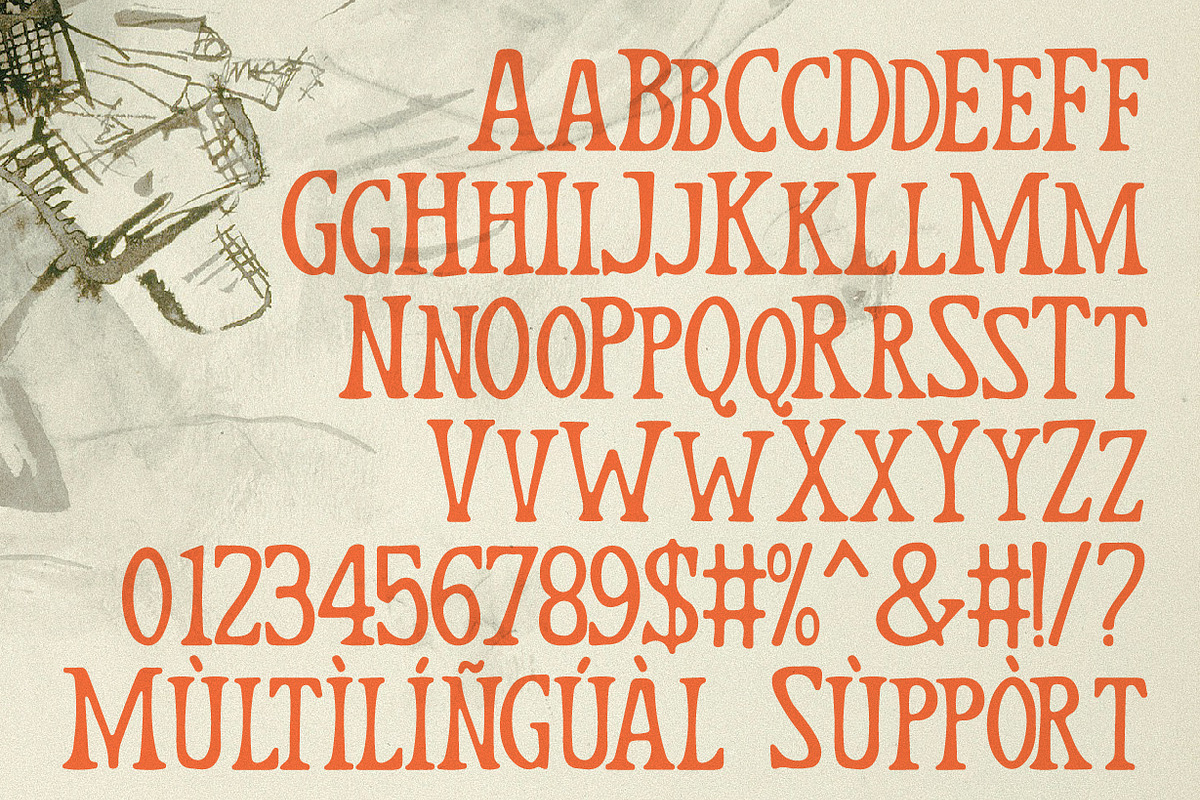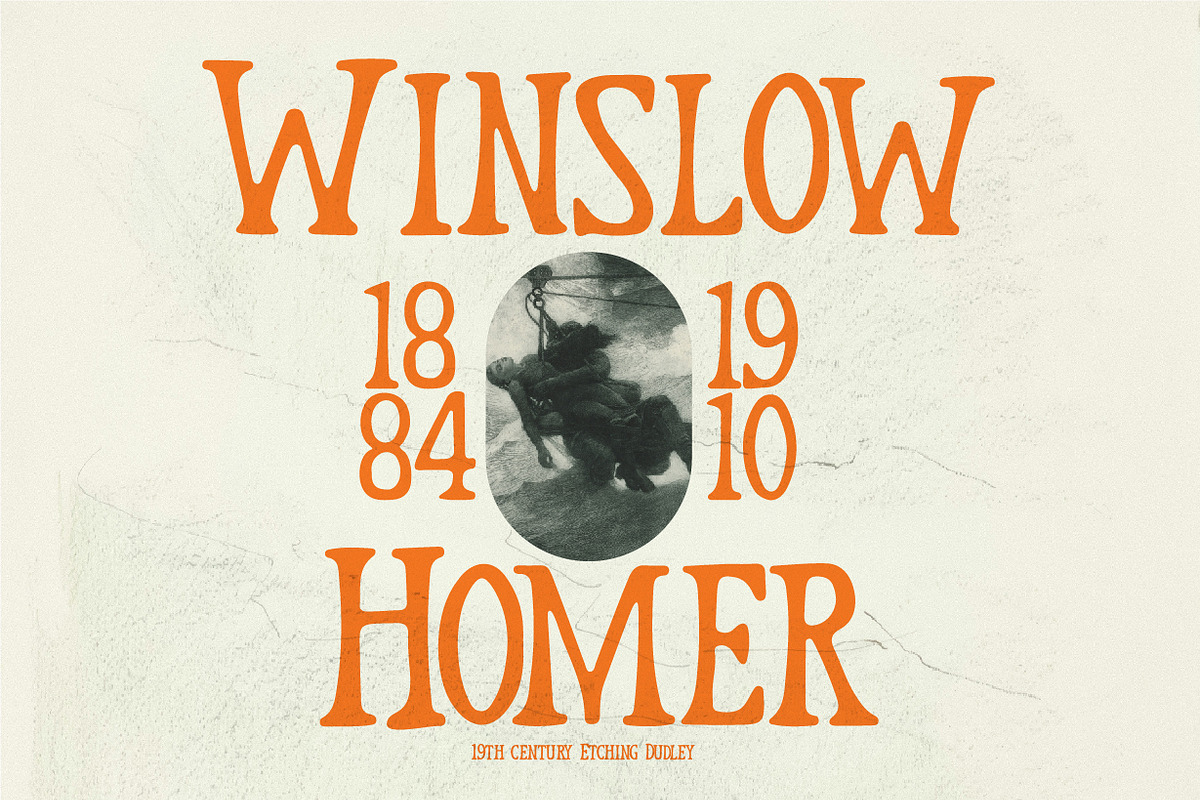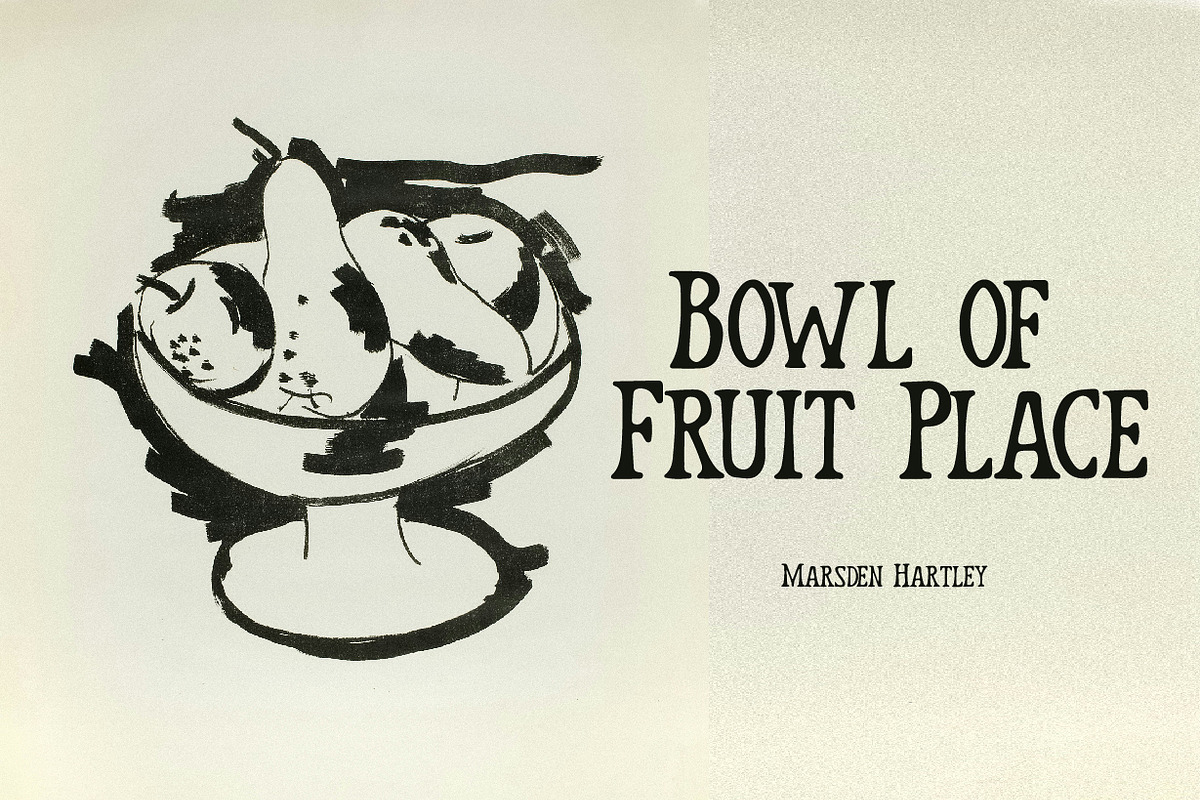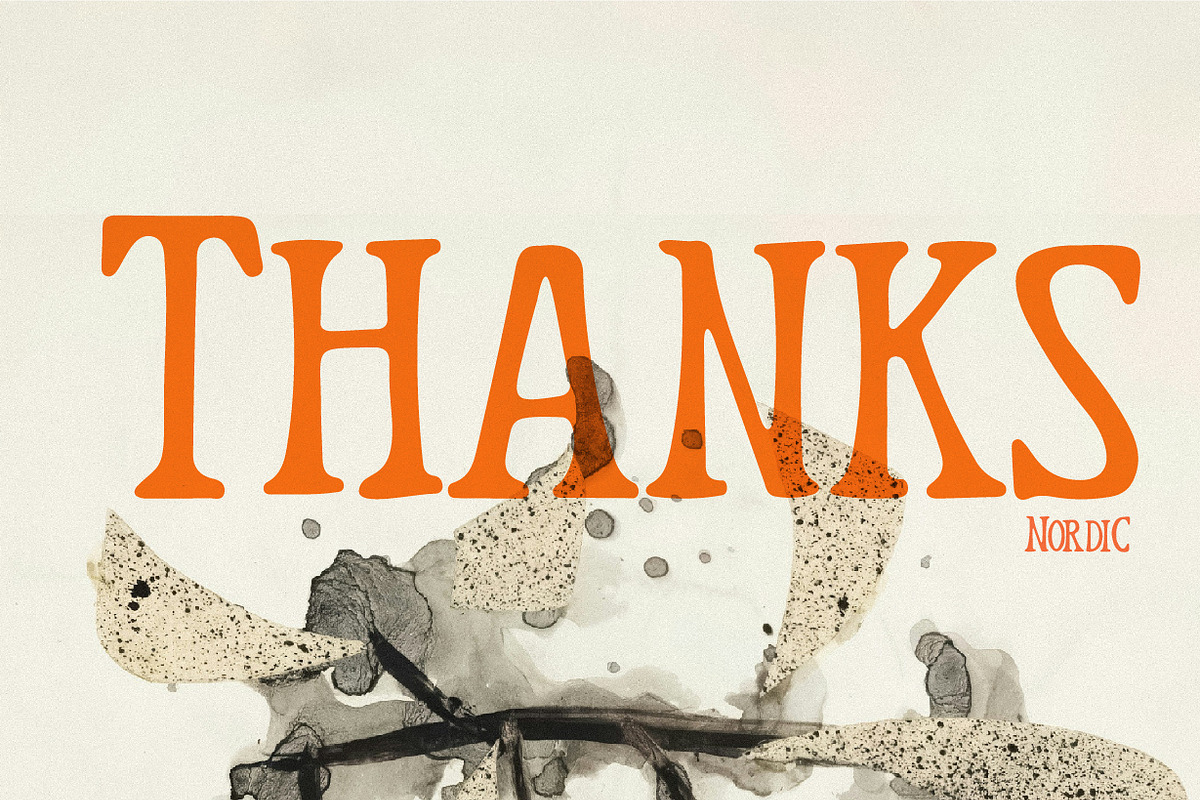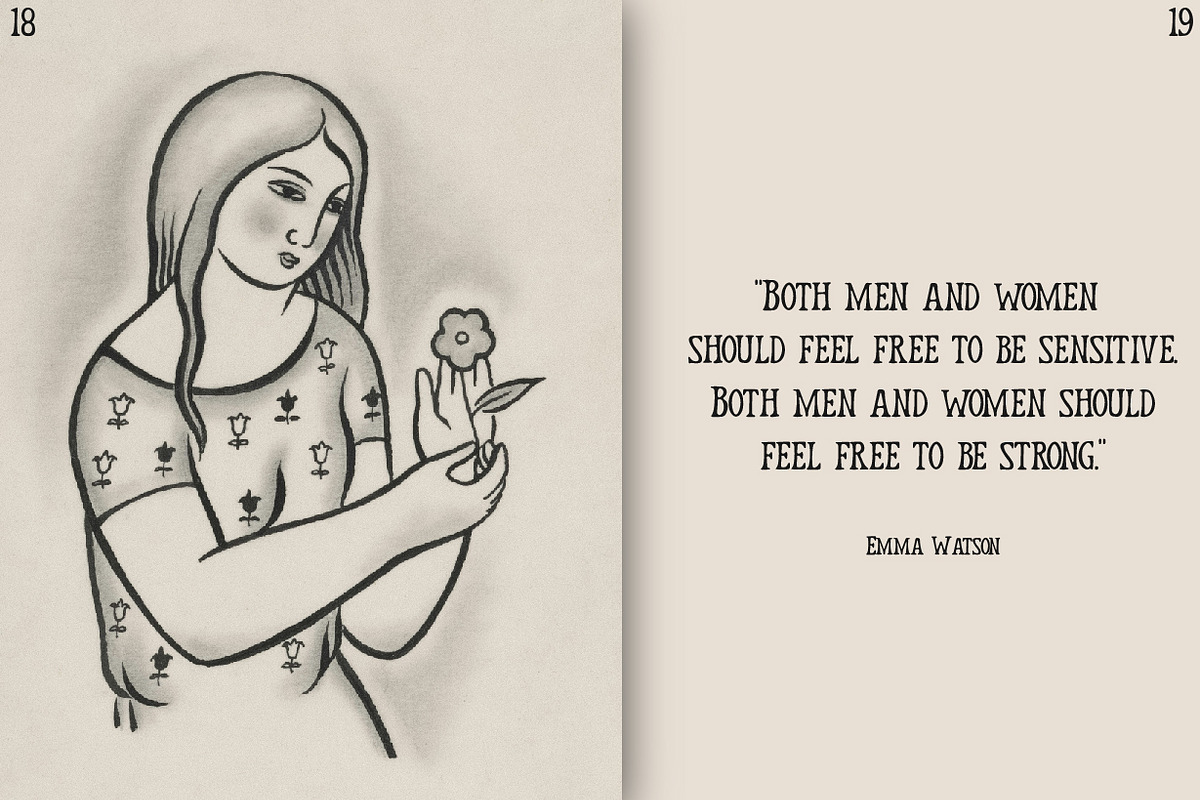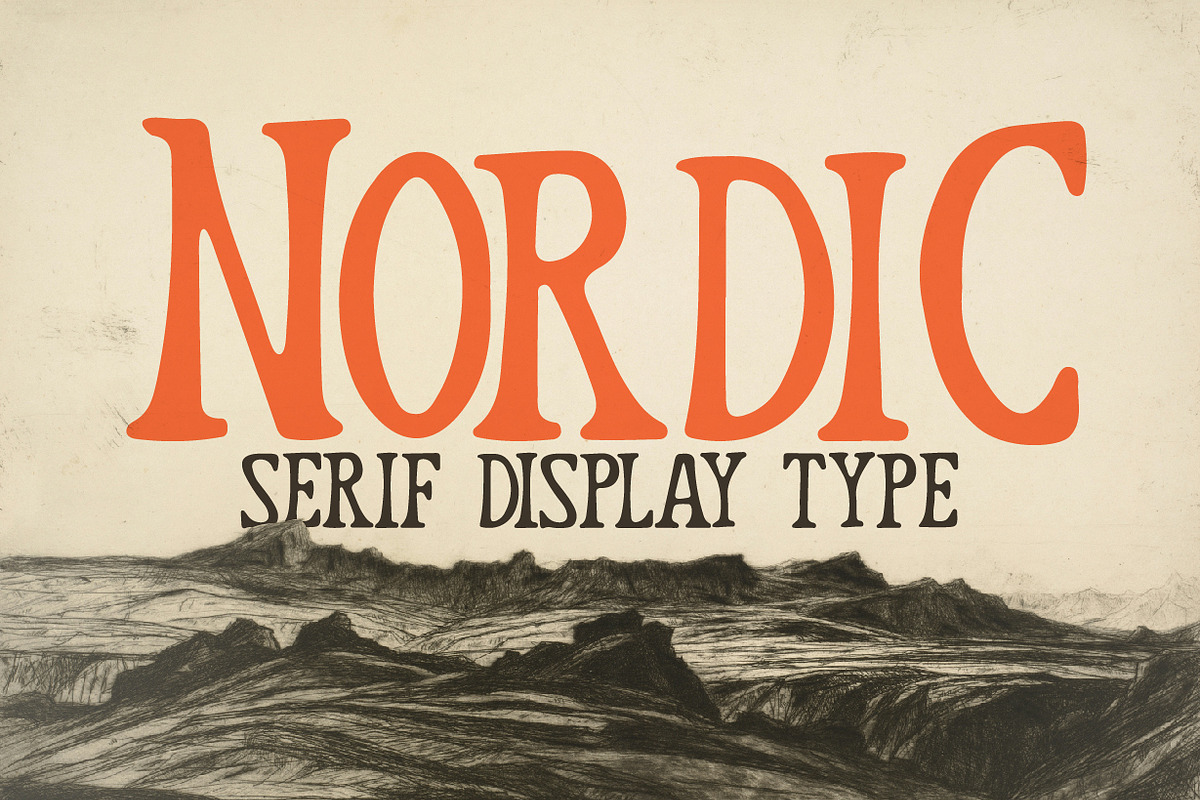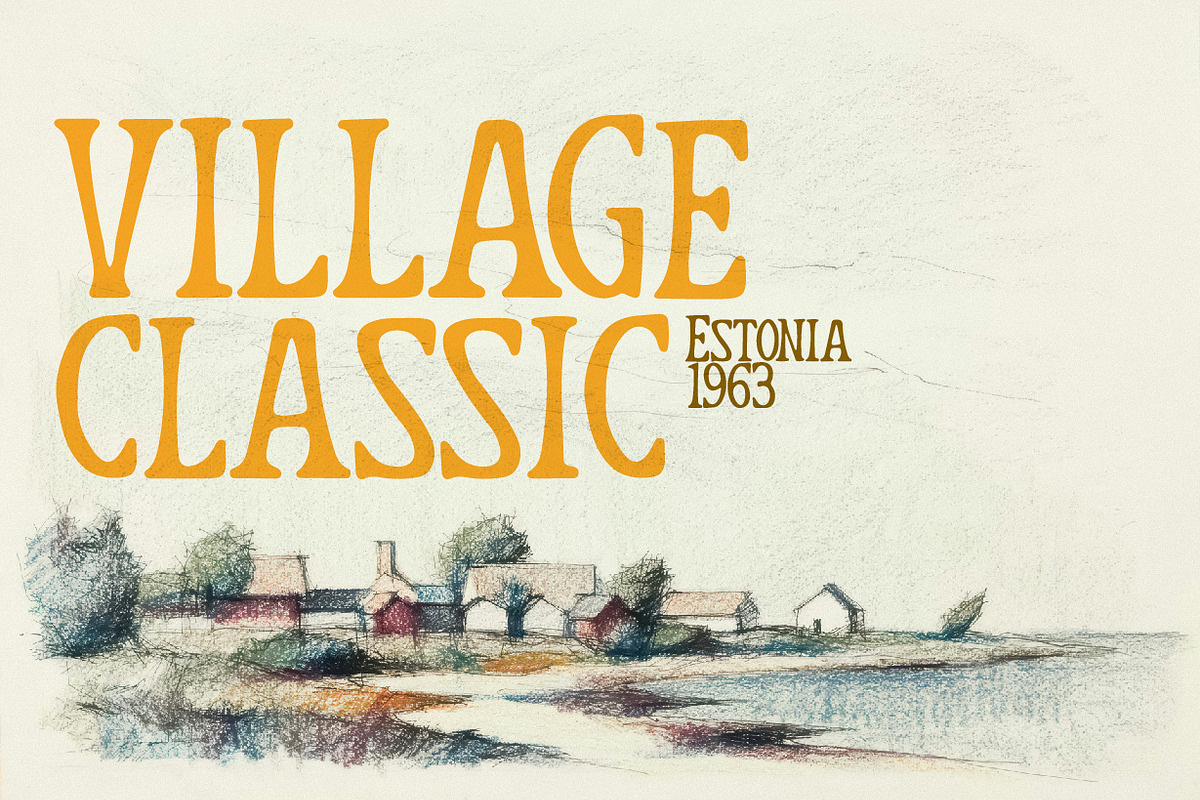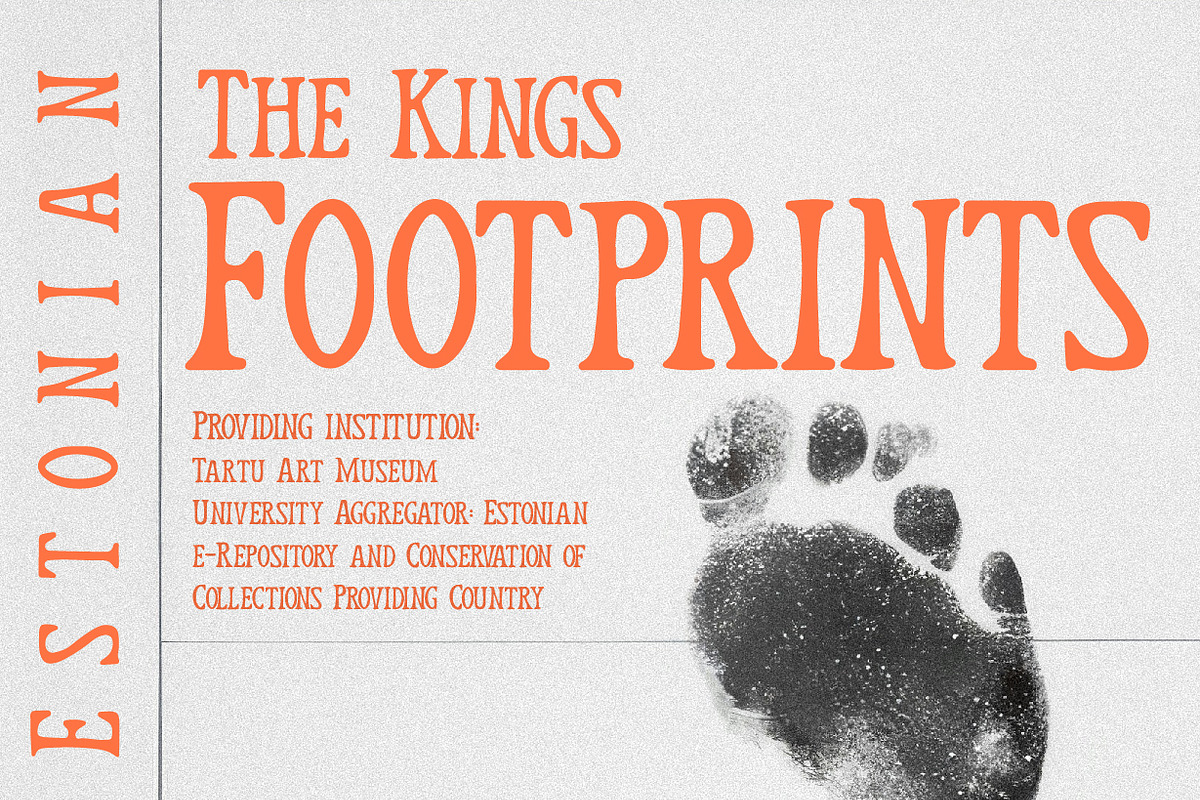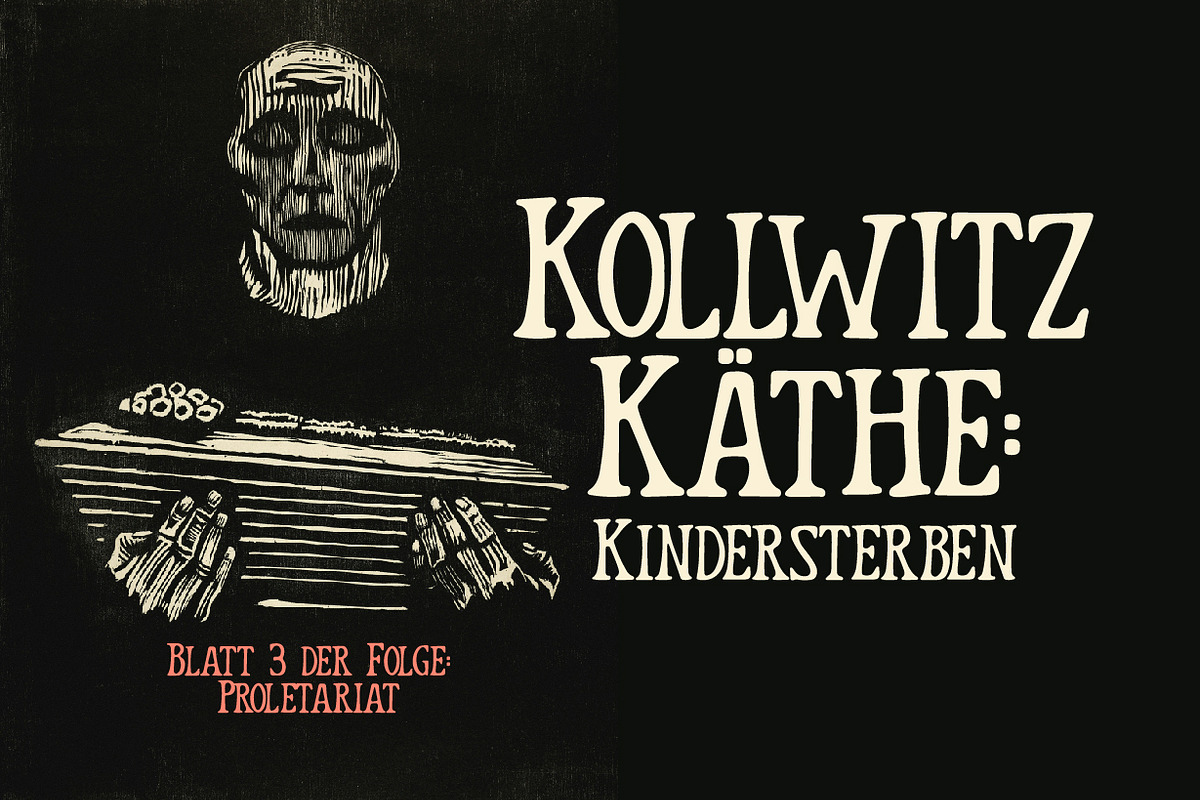
Nordic Display Serif font
Introducing Nordic which has a Bold design and looks like a print. The font looks like a serif but the lines are irregular so it looks more natural. Suitable for use in various media, book covers, posters, typography, promotions, and other digital media.
Uppercase and lowercase letters.